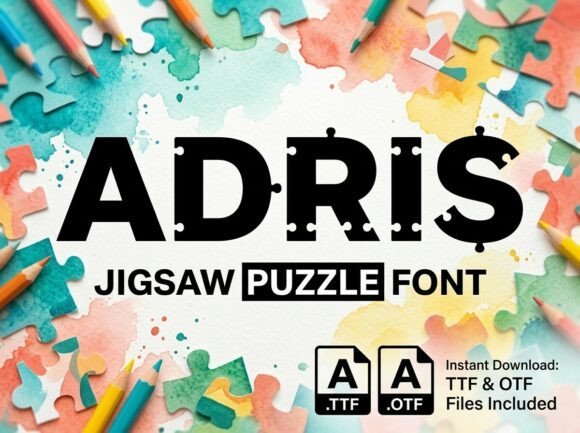
Unleash Your Creativity with the Adris Font
Have you ever been working on a project and suddenly, the perfect font pops into your head, transforming your design from ordinary to extraordinary? That’s exactly what happens when you discover the Adris Font – a decorative display font designed to elevate your creative projects to new heights.
The Adris Font is more than just a font; it’s a statement piece, perfect for making a lasting impression. Its unique artistic elements and strong character make it ideal for bold headlines, creative branding, and packaging that demands a high-end, professional aesthetic without sacrificing personality.
Whether you’re a seasoned designer or just starting out, the Adris Font is a valuable addition to your toolkit. With its versatility and All-Caps display typeface, you’ll be able to create stunning logos, titles, and decorative initials that set you apart from the crowd.
Key Features of Adris Font
- Font Family: Adris is a sans-serif font family, designed for digital and print media.
- Size: The font family includes 8 weights, ranging from Light to Black, allowing for a wide range of design applications.
- Unique Characteristics: Adris features a clean and modern design, with a focus on legibility and readability in digital and print media.
Adris Font Review
As a designer, I was excited to dive into the Adris font and see what it has to offer. Here’s my honest review.
- The Adris font has a unique and modern feel to it, making it perfect for digital interfaces and user-friendly applications.
- The font is highly legible, even at smaller sizes, which is a must-have for any font in today’s digital age.
- The Adris font family is quite extensive, offering a range of weights and styles to suit various design needs.
- The font is highly customizable, allowing designers to fine-tune the look and feel to their liking.
- The Adris font may not be the best choice for traditional or formal applications, such as book publishing or formal reports.
- The font’s modern feel may not appeal to those who prefer a more classic or timeless look.
- The font’s extensive range of weights and styles can be overwhelming for some designers.
Overall, the Adris font is a solid choice for digital design projects that require a modern and user-friendly aesthetic. While it may not be the best fit for every project, it’s definitely worth considering for the right application.
Tips for Getting the Most Out of Adris Font
Here are some tips to help you get the most out of Adris Font:
- Experiment with different font sizes and styles to achieve the desired effect.
- Combine Adris Font with other fonts to create a unique and visually appealing design.
- Use Adris Font to create bold headings and titles to draw attention to important information.
Alternatives to Adris Font
The Adris Font includes a comprehensive character set, covering Latin, Cyrillic, and Greek alphabets, as well as various punctuation marks and symbols. It also includes a wide range of ligatures and contextual alternates to enhance typography and readability.